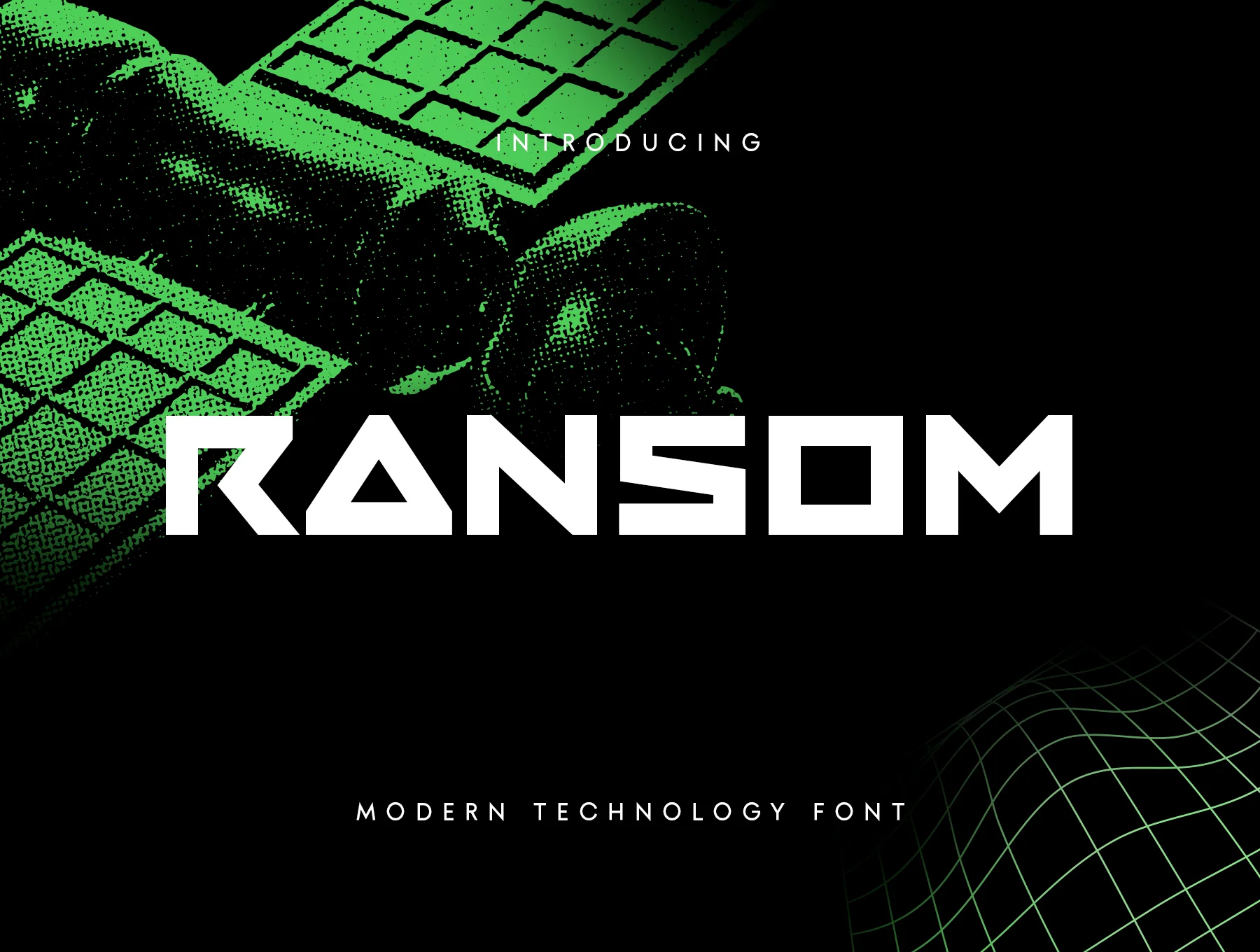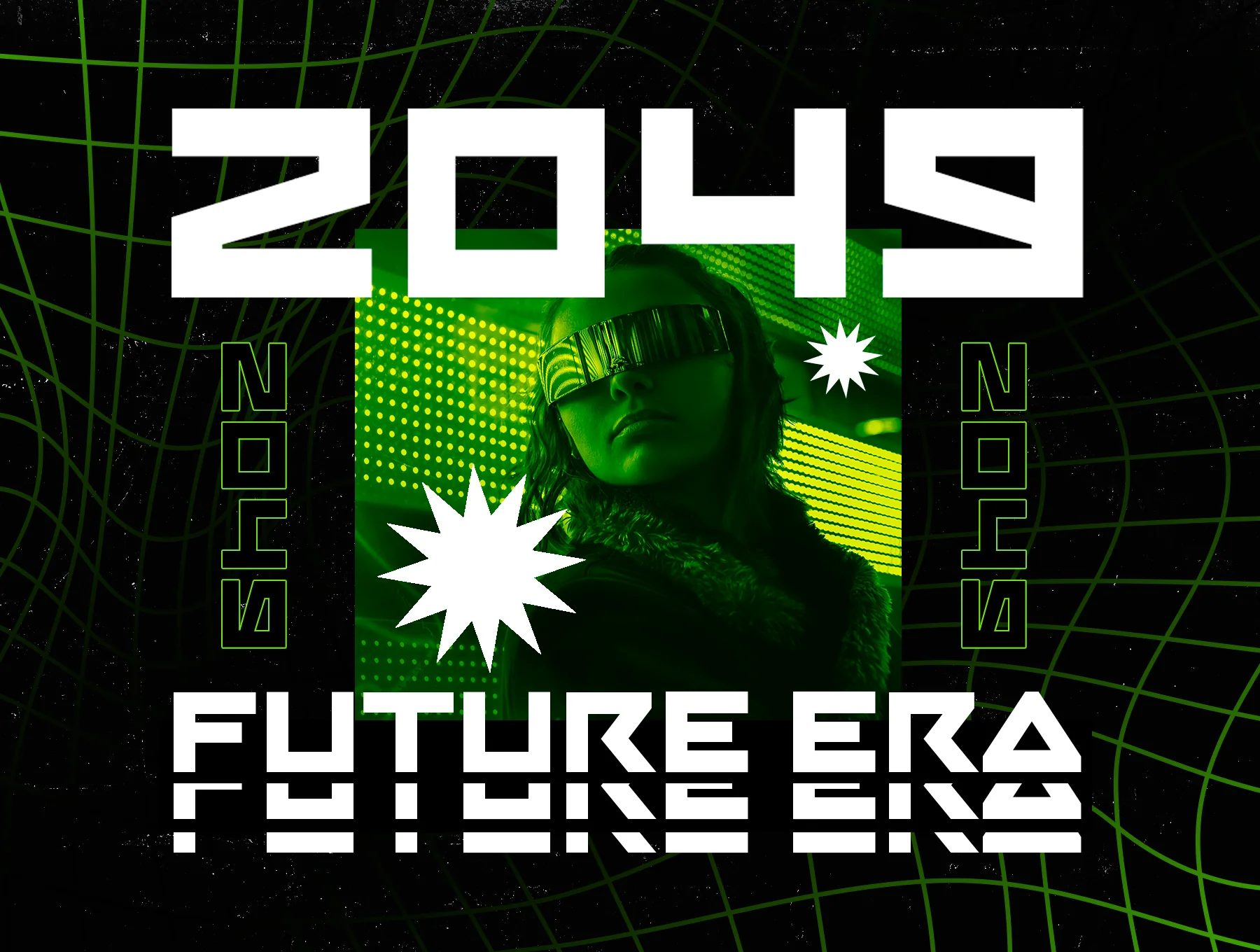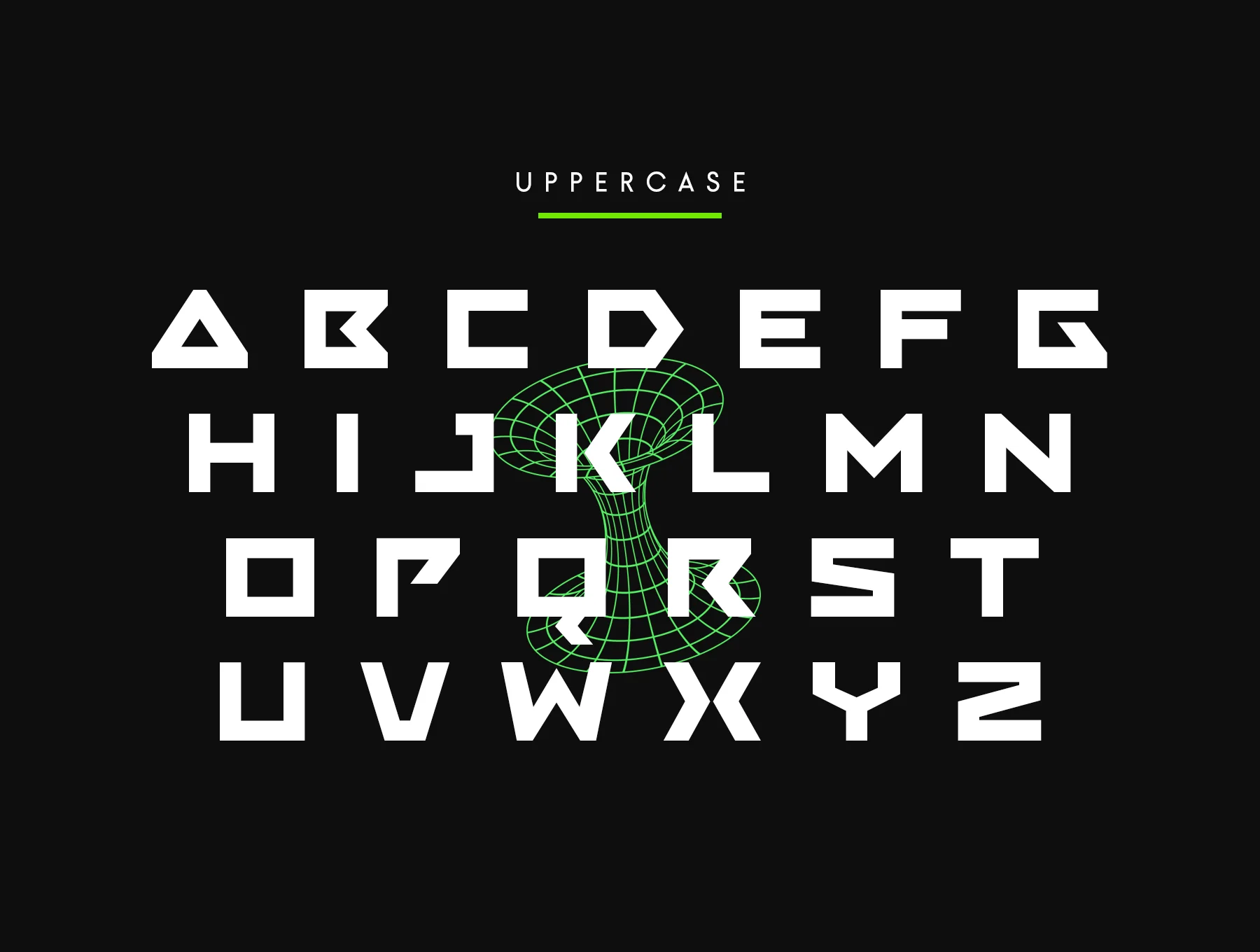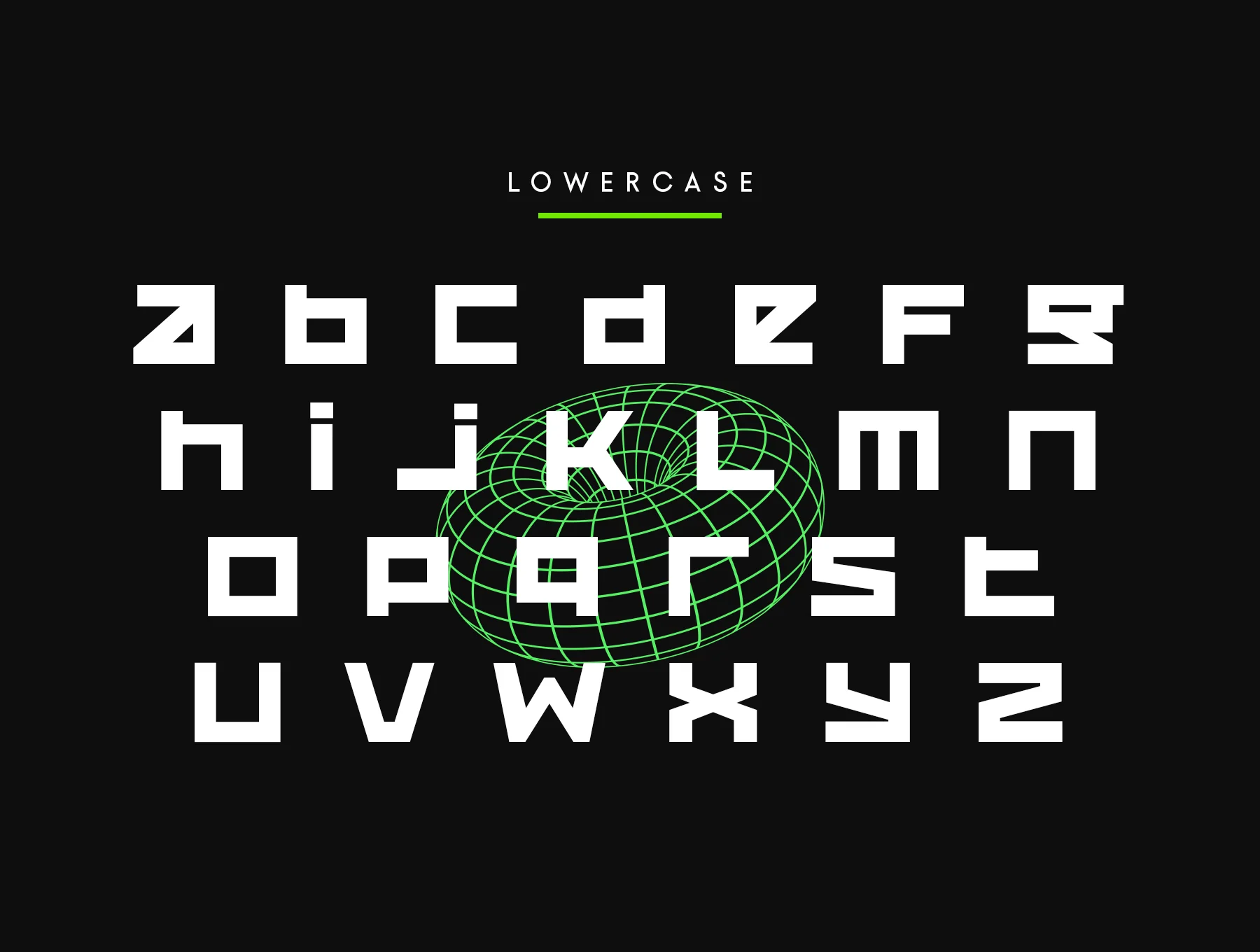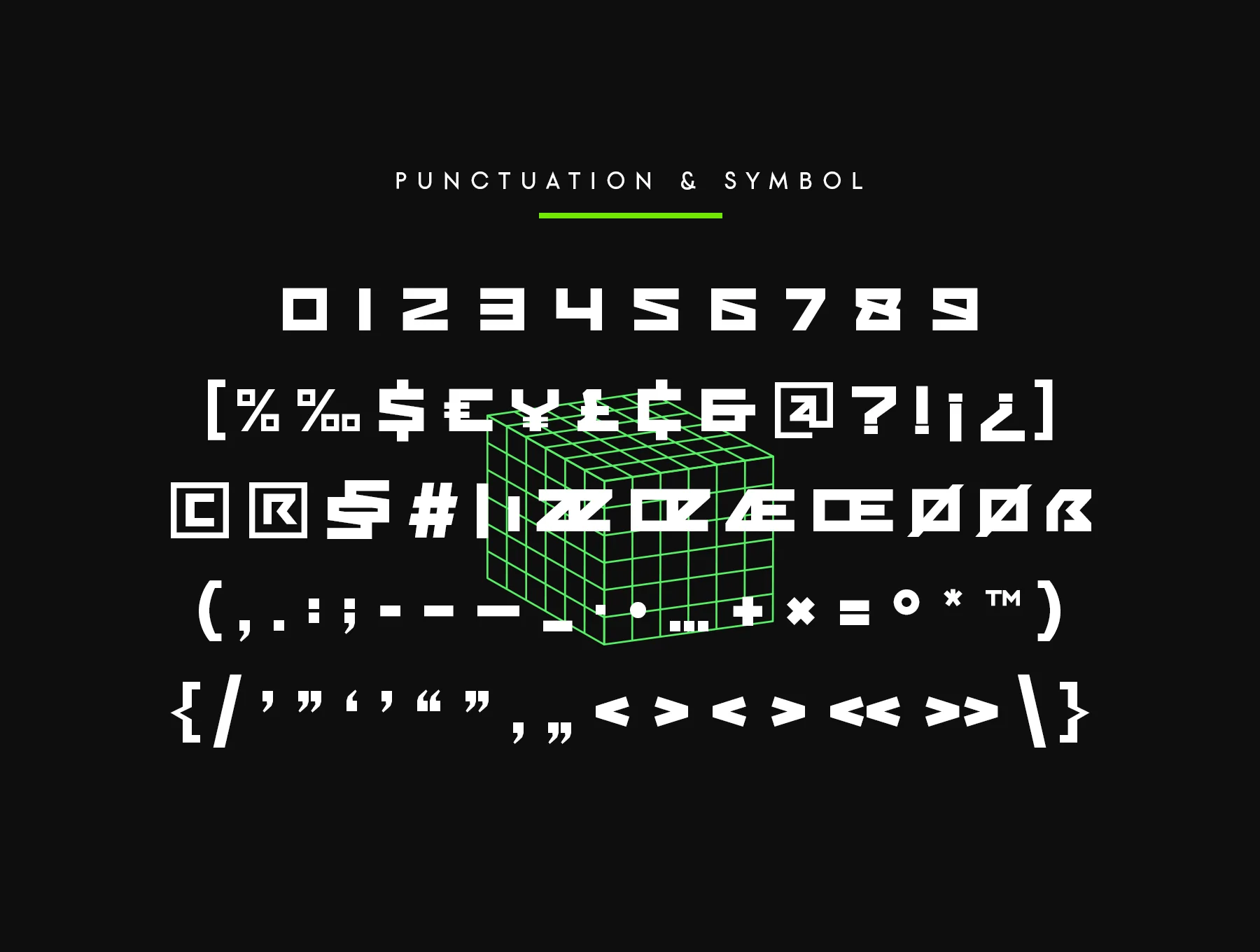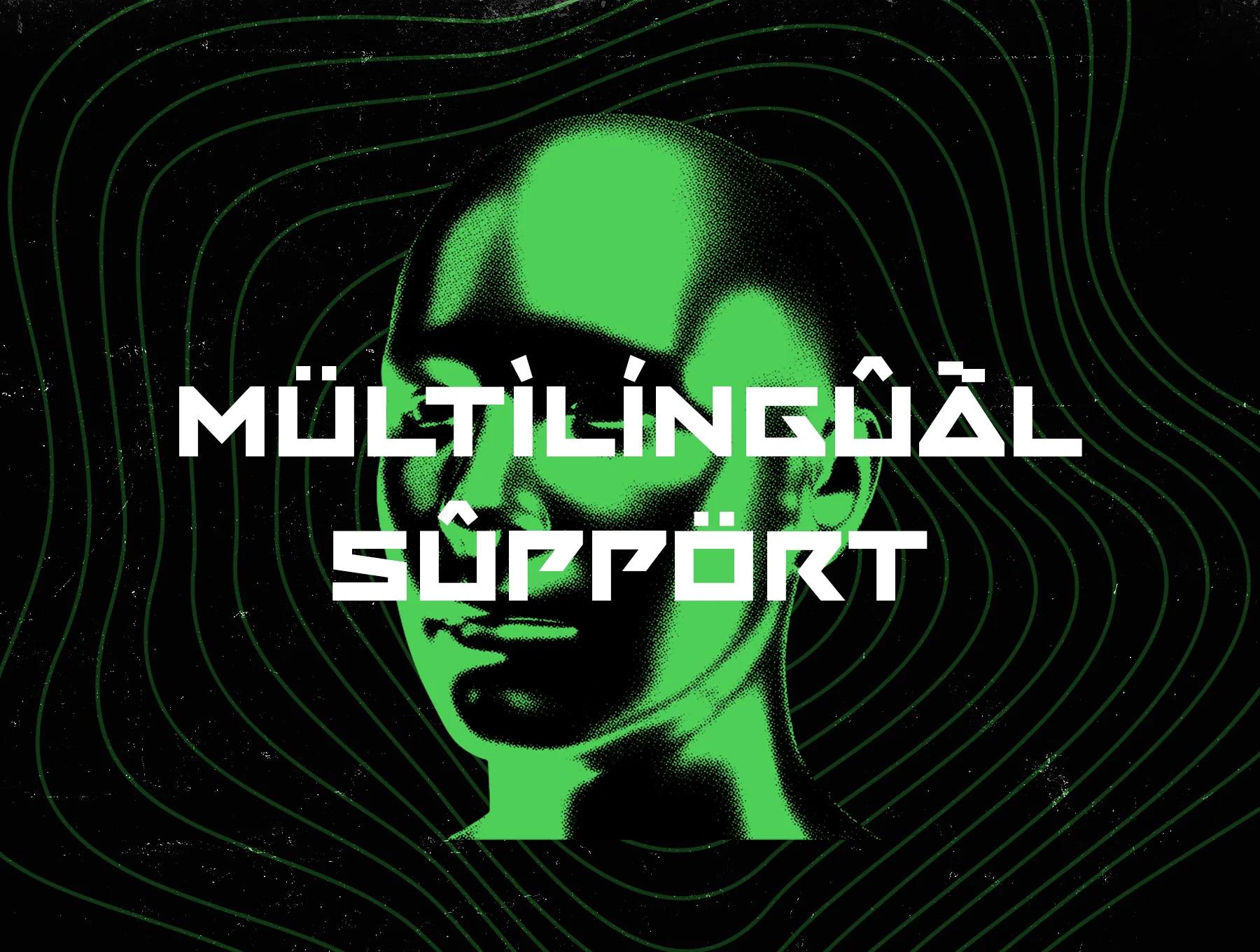
Ransom Font
Ransom – Contemporary Tech Typeface
Complete uppercase and lowercase alphabet
International characters, numbers, and punctuation
Ransom is a futuristic modern tech font designed for sci-fi, action, and technology-themed projects. Its bold uppercase style helps headlines and key visuals feel striking and memorable. Includes .otf, .ttf, and .woff files, creative-ready characters, and preview samples for inspiration.